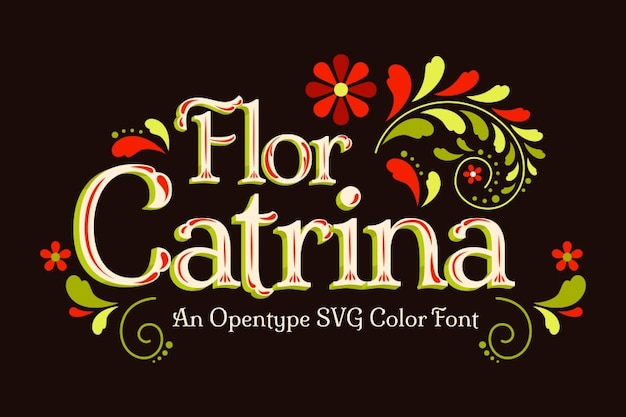
"Flor Catrina" font embodies the festive spirit of Mexican culture, perfect for Cinco de Mayo celebrations. With its playful curves and charming details, it exudes a cute and vibrant charm, reminiscent of traditional Mexican folk art. Each letter reflects the richness of Mexican heritage, adding flair and warmth to your designs, making it ideal for festive invitations, posters, and greeting cards. Celebrate with "Flor Catrina" and bring a touch of Mexican joy to your projects!